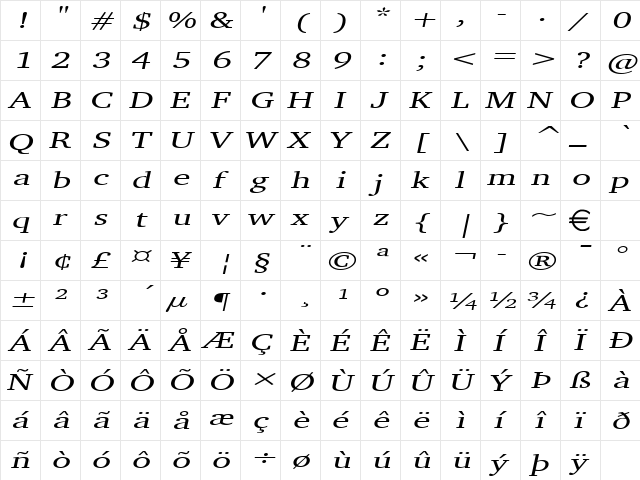
ChallengeExtended Italic
Design Context for ChallengeExtended Typeface
ChallengeExtended offers clean, dependable letterforms without strong stylistic allegiance, making it a practical choice for designers who need flexibility. The dynamic lean of this cut emphasises speed and emphasis in any layout.
Pro Tip: Use ChallengeExtended for emphasis, pull quotes, and subheadings where its slanted energy can add rhythm to the layout.